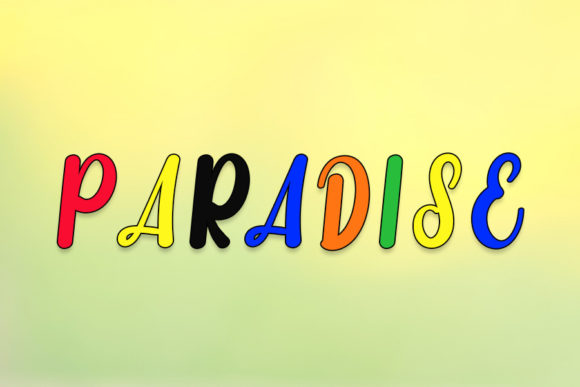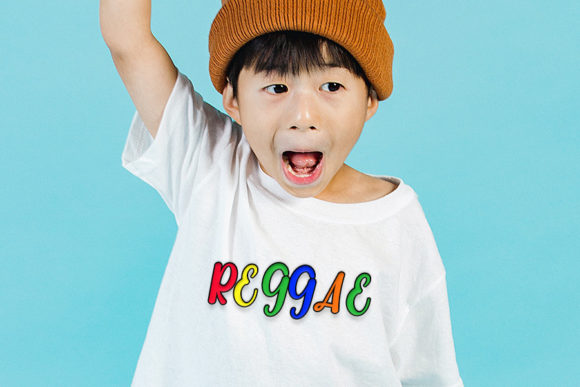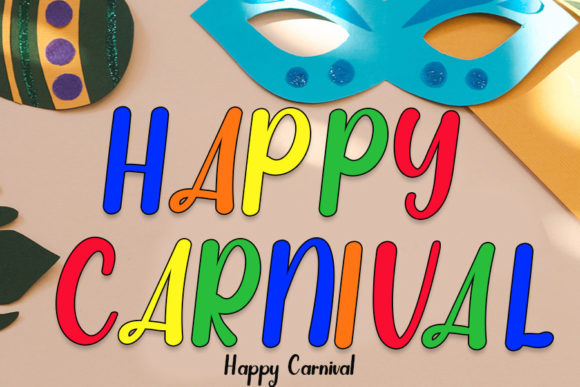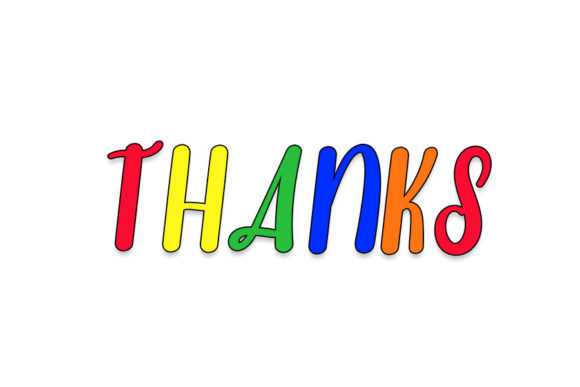
Rainbow Font
Rainbow emerges as a testament to the art of handwritten friendliness, meticulously crafted to earn its place as a cherished font. Blending the timeless elegance of calligraphy with a modern, invigorating twist, Rainbow strikes the perfect balance between classic and contemporary.
As you dive into the strokes of Rainbow, you’ll discover a font that welcomes you with open arms. Its friendly curves and lines create an instant connection, making it more than just a set of characters – it becomes a companion in your creative journey. With each stroke, you’ll experience the harmonious marriage of tradition and innovation, resulting in a font that feels simultaneously familiar and refreshing.
Rainbow’s appeal isn’t limited to visual aesthetics; it carries an essence that evokes emotions and sets the tone for genuine connection. The careful design of every letter resonates with authenticity, creating a warm and approachable atmosphere. This font is not merely a tool for communication; it’s an invitation to engage, to converse, and to create.
Whether you’re working on branding materials, invitations, or any form of design, Rainbow effortlessly adapts to various contexts. Its ability to maintain classically inspired calligraphic influences while embodying a contemporary flair ensures that it remains relevant across a wide spectrum of projects.
In a world where first impressions matter, Rainbow becomes the brush that paints your creativity with sophistication and approachability. Its fusion of timeless charm and modern appeal allows you to tell stories that resonate deeply with your audience, leaving an indelible mark.
So, let Rainbow be the beacon of your creativity. Allow its friendly grace to guide your hand, and watch as it breathes life into your designs, making them come alive with a harmonious blend of tradition and innovation. With Rainbow by your side, you’re not just designing – you’re crafting experiences that touch hearts and captivate minds.